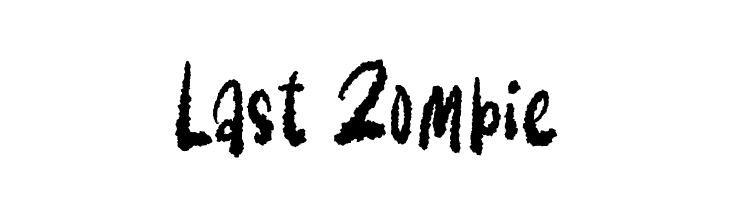
A bold, expressive handwritten font with thick, uneven strokes and a playful style.
A bold, textured font with a hand-drawn brush stroke style.
A playful, casual handwritten font with fluid strokes and a dynamic appearance.